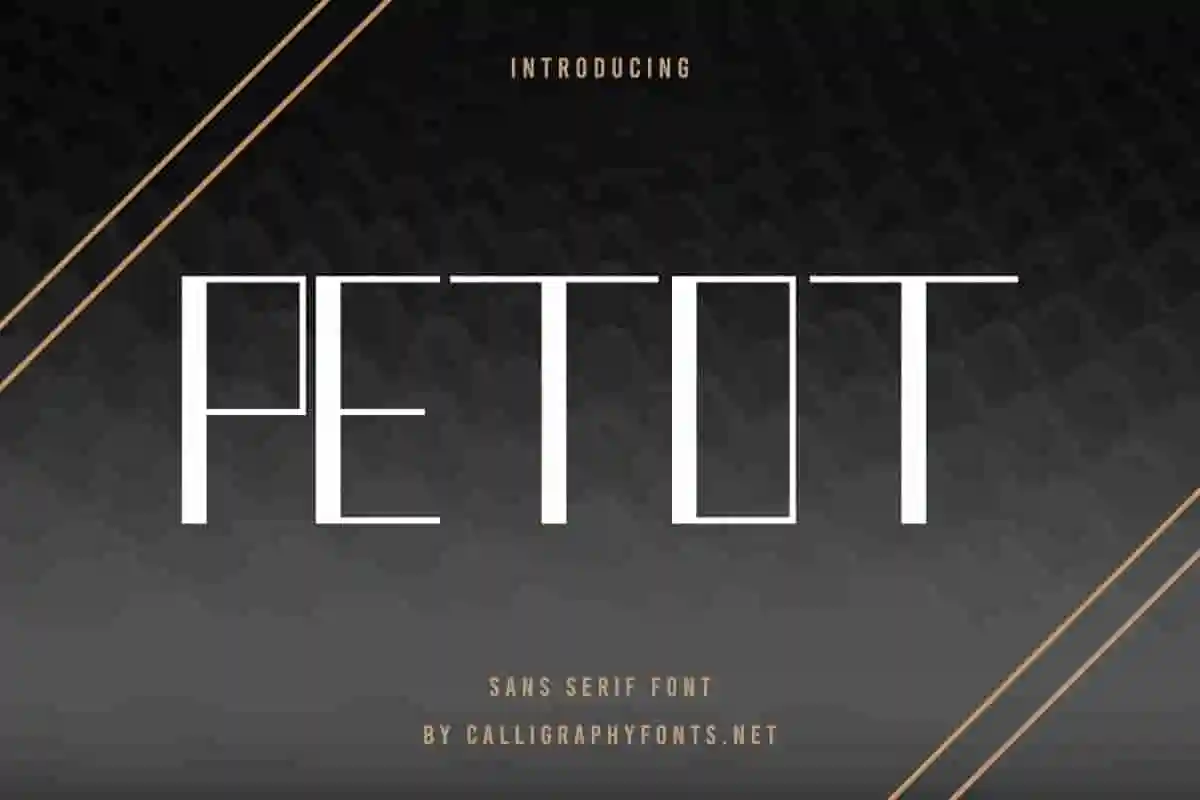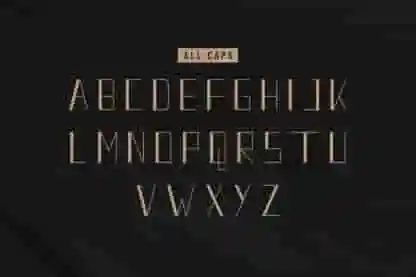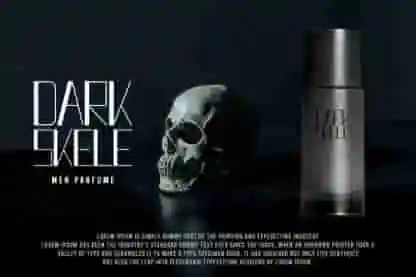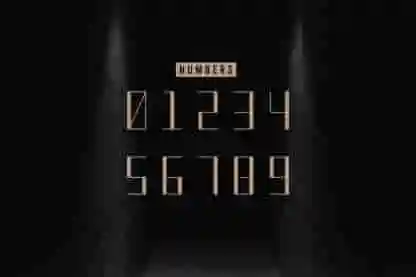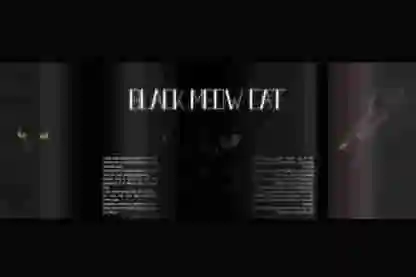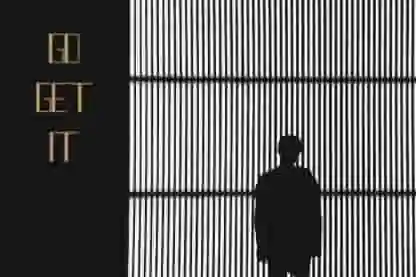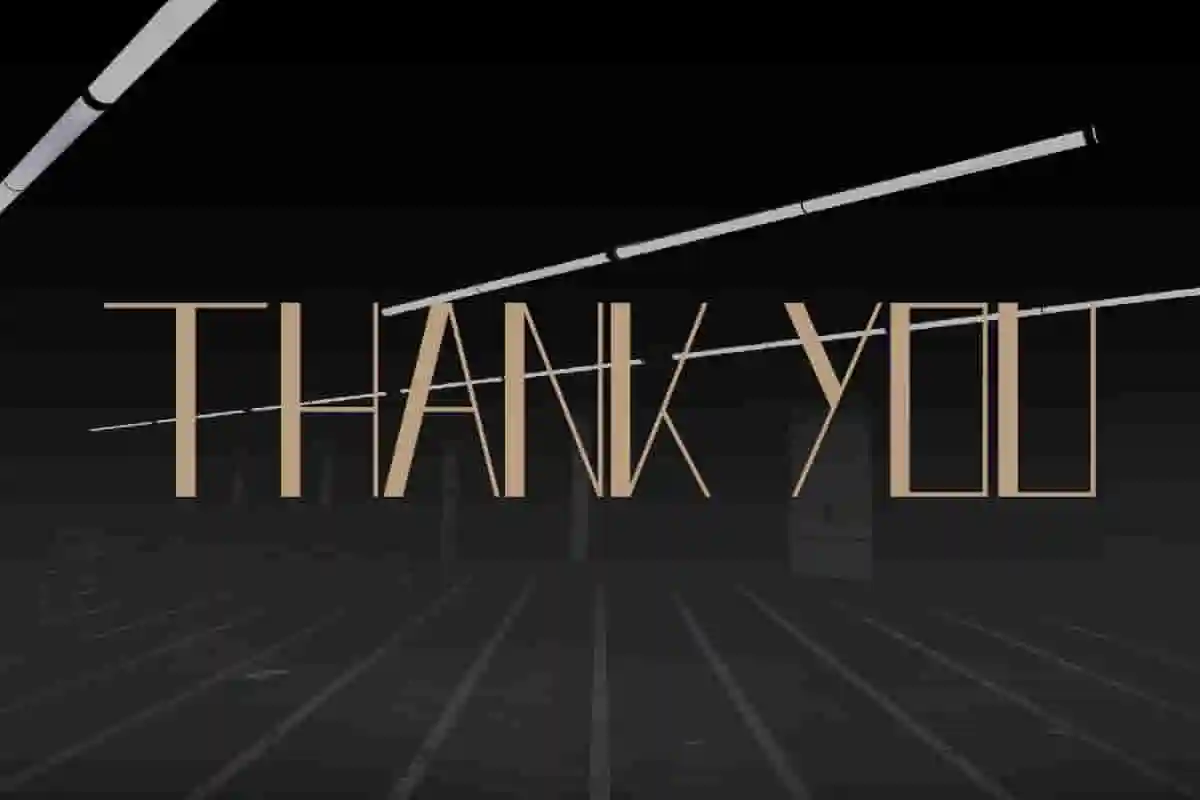
Petot Display Font
Petot Font is an exclusive sans serif display font by CalligraphyFonts.net. Petot will be Great for many purposes : logotype, headlines, brandings, packaging, quote etc
Petot Font is a Display Sans Serif Font with aesthetic modern style. The character of the font is modern, elegant, luxury, glamour, futuristic and sophisticated.
Make your projects stand out with Petot Display Font, a striking and modern typeface crafted to grab attention. With its bold shapes and clean lines, this display font is perfect for creating impactful headlines, logos, posters, and branding materials that demand a strong visual presence.
Turn your words into powerful design elements with Petot Display Font, a bold and modern typeface created to deliver maximum impact. Featuring clean lines and dynamic letterforms, this font is perfect for headlines, posters, branding, and all designs that need attention-grabbing typography.
Ideal for advertising, logo creation, social media graphics, product packaging, and creative marketing materials, Petot ensures that your text makes a statement.
Whether you’re designing for advertising, social media, product packaging, or creative branding, Petot gives your text the power and clarity it needs.
• Perfect for premium projects
• Handcrafted elegance